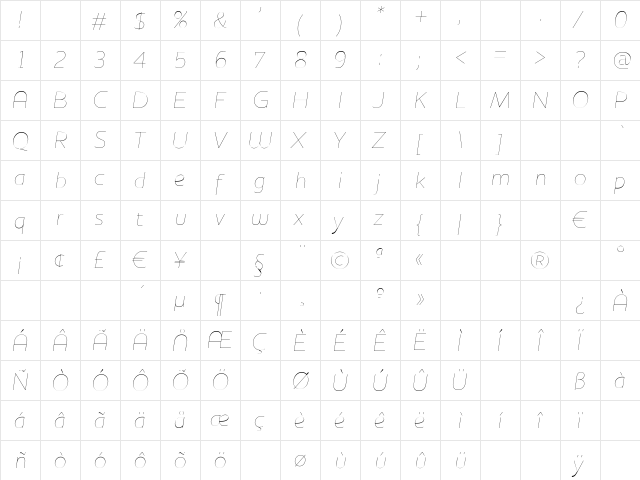
HouschkaThinItalic Font Preview
HouschkaThinItalic ThinItalic
Design Context for HouschkaThinItalic Typeface
HouschkaThinItalic takes a measured approach to typography — its balanced proportions and neutral character make it a reliable workhorse for both digital and print work. The slanted form adds forward momentum and visual energy. Its slender proportions lend an understated elegance to any composition.